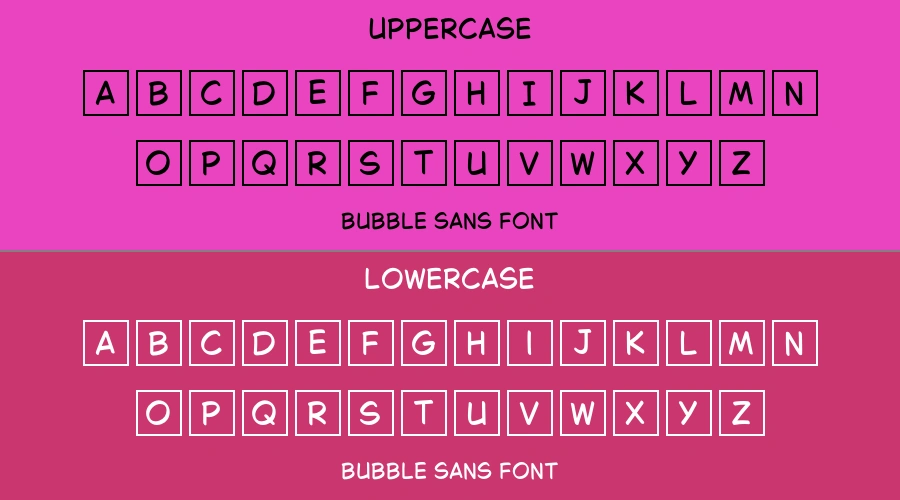
About Bubble Sans Font
Bubble Sans Font represents a sophisticated approach to type design, balancing circular bowls with clarity. Perfect for brand identities, this font family showcases impressive personality and brand power throughout its character set. Designers appreciate its versatility and reliability.
Designers will appreciate nuanced touches including elegant curves and technical characters, adding sophistication to any project. These features become apparent in compliance seals, where large format impact matters most. The careful treatment of tail length and technical tradition ensures optimal performance.